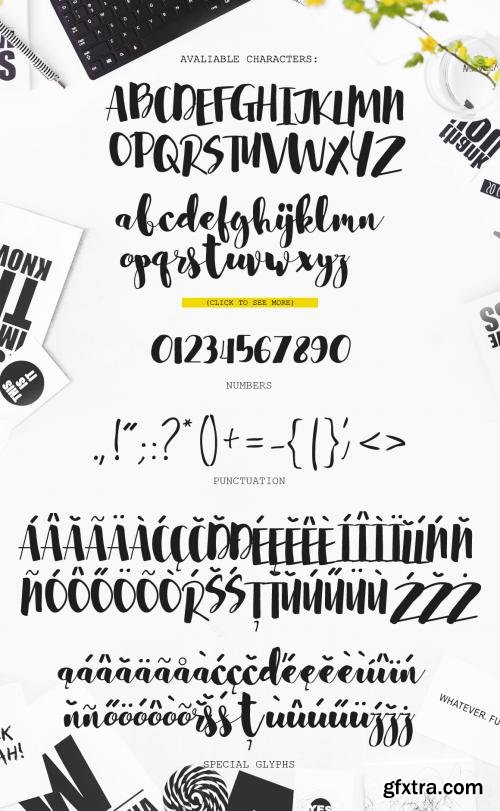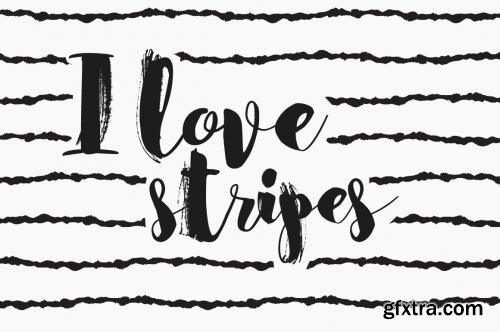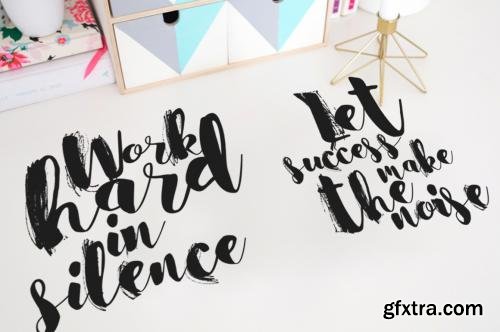
CM - Berow Grunge Script 565379
- Berow is a hand-made script, which comes with upper and lowercase characters, basic punctuation, numbers and special glyphs, so the font can be used with most of the European languages. Alternate grunge glyphs are included (check previews) . Main file includes the following formats: - .ttf - .otf